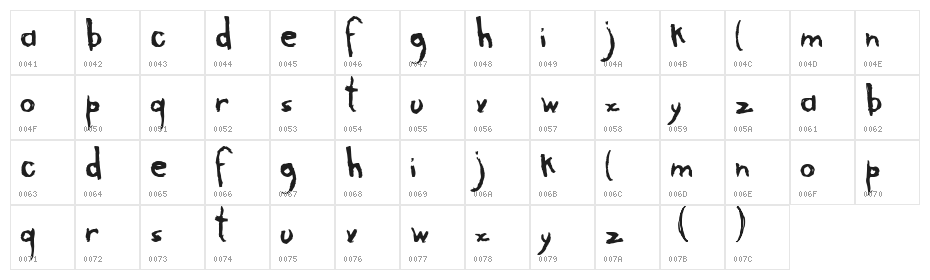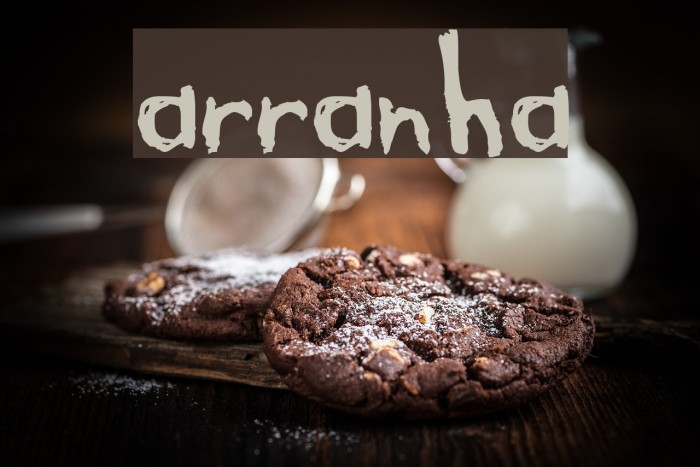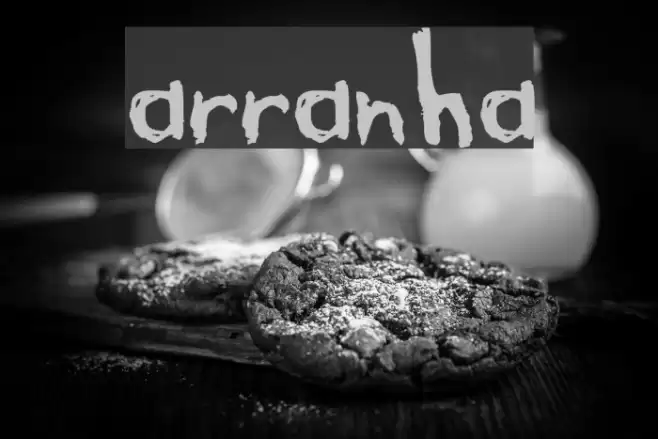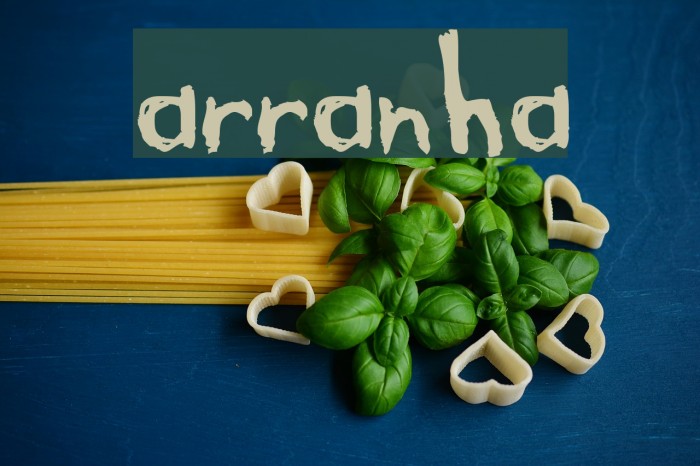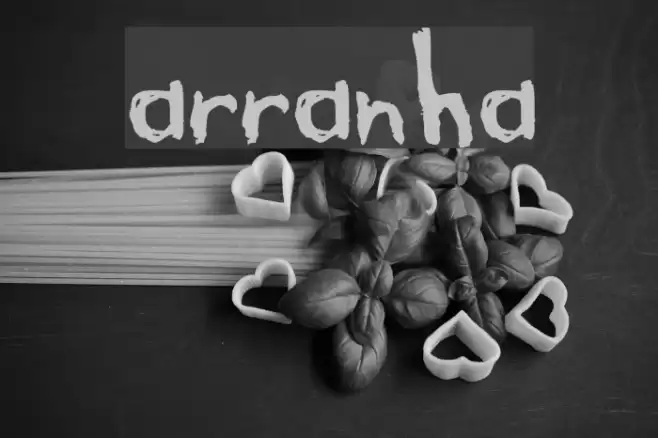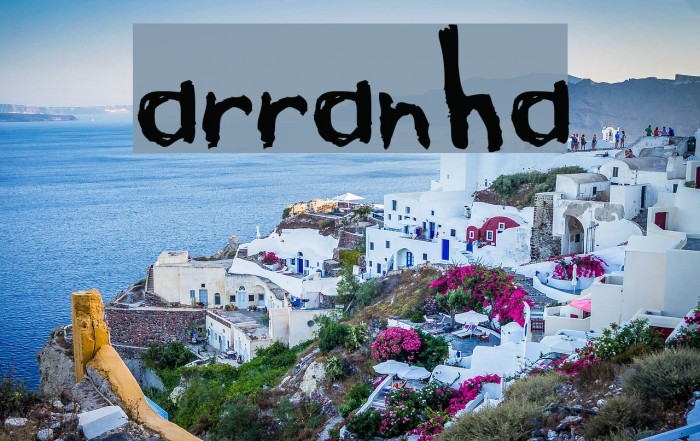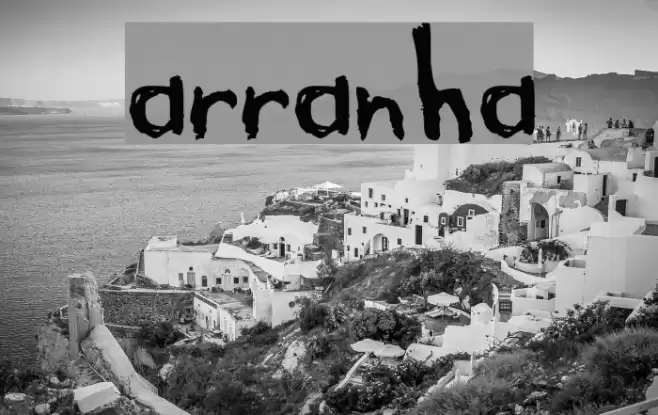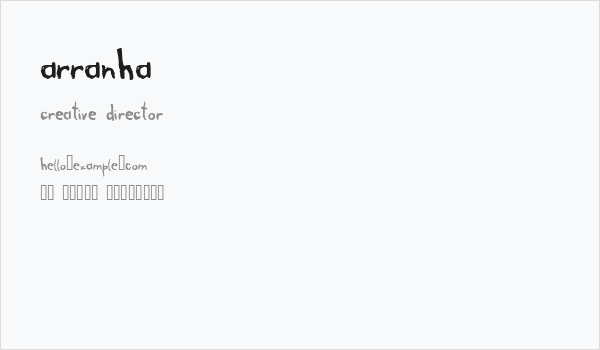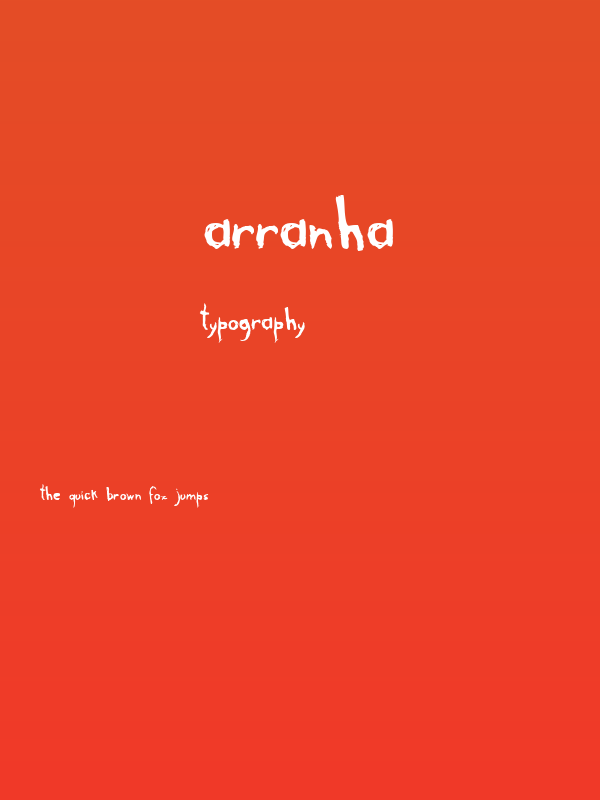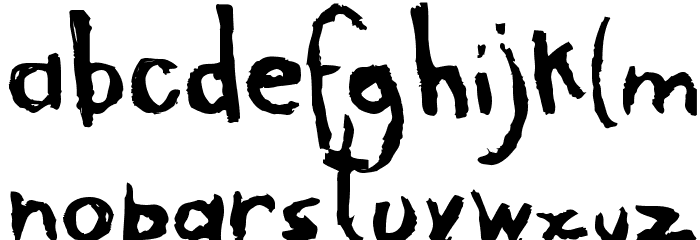
arranha Font
arranha Description
This font exhibits a bold, expressive style with a hand-drawn appearance. The characters are irregular and have a rough, textured look, giving them a dynamic and artistic feel. The strokes are uneven, with some letters featuring thicker lines and others appearing more slender. This creates a sense of movement and energy. The font lacks uniformity, with varying heights and widths among the characters, contributing to its unique and creative aesthetic. It is reminiscent of brush or ink writing, making it suitable for projects that require a personal, handcrafted touch.
| Overall Style | Artistic, Expressive |
| Use Case | Logos, Posters, Artistic Designs |
| Proposed Projects | Ideal for artistic projects, posters, album covers, or any design that benefits from a handcrafted, creative touch. |